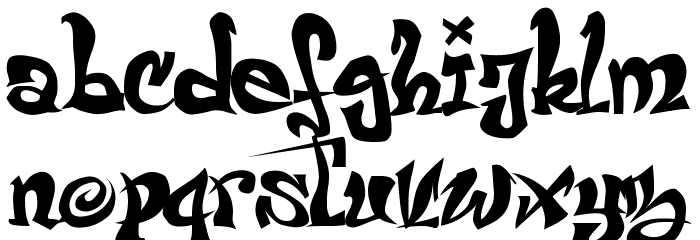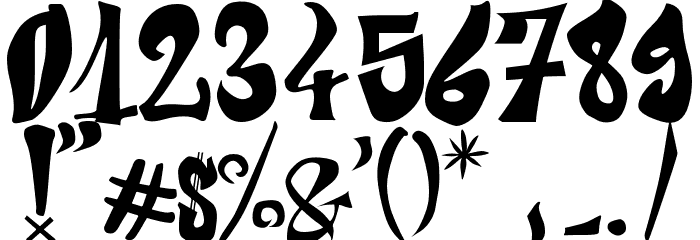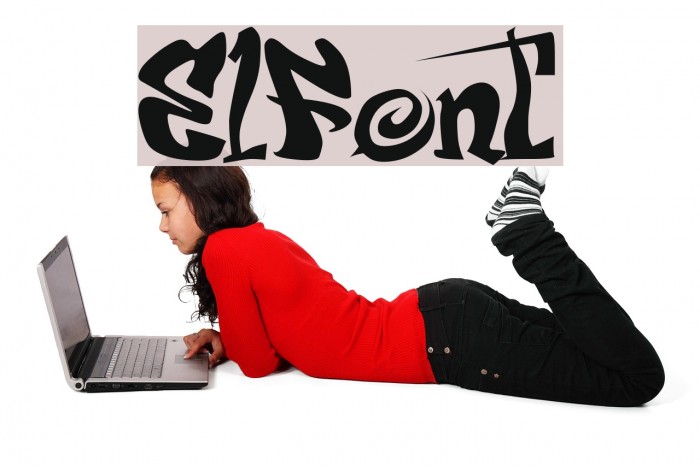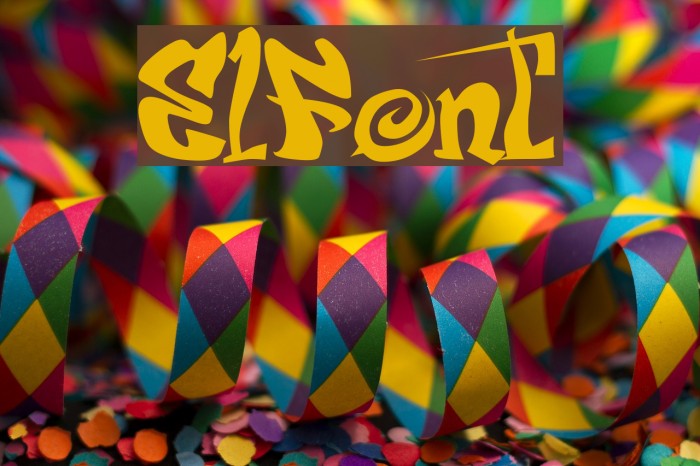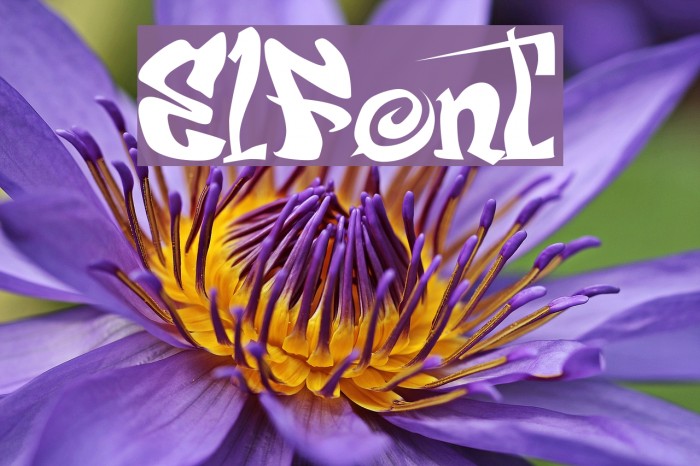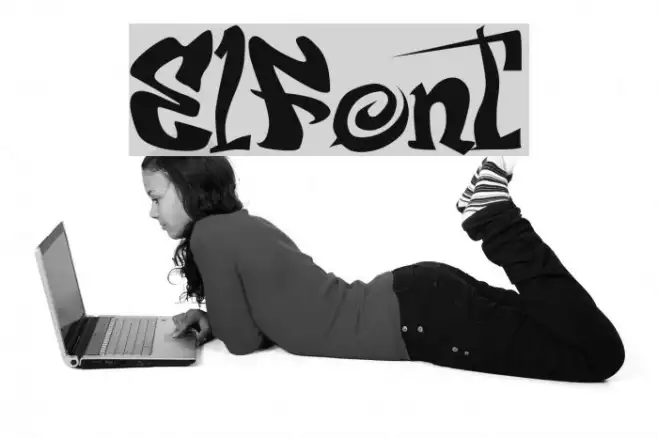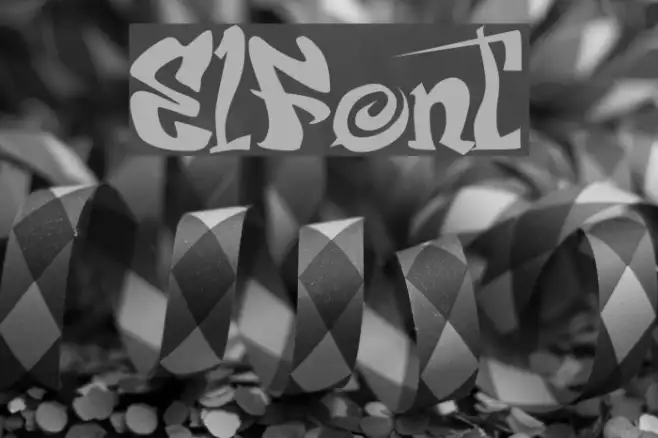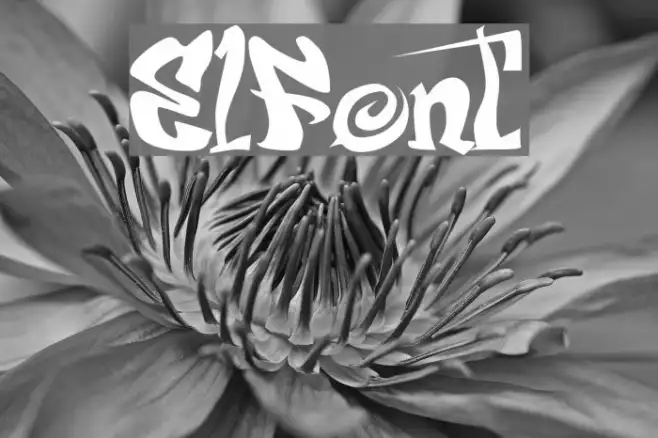
ElFont Font
This font features a bold and dynamic style with a graffiti-like appearance. The characters are highly stylized with exaggerated curves and angles, giving it a rebellious and energetic feel. The uppercase letters are particularly striking, with sharp edges and unique shapes that make each letter stand out. The lowercase letters maintain the same boldness, with a slightly more fluid design. Numbers and special characters follow the same aesthetic, ensuring consistency throughout. This font is perfect for projects that require a strong, eye-catching visual impact.
A bold, graffiti-inspired font with dynamic and stylized characters.
- Proposed Projects: Ideal for street art designs, urban-themed posters, music album covers, and edgy branding projects.
- Overall Style: Modern, Urban